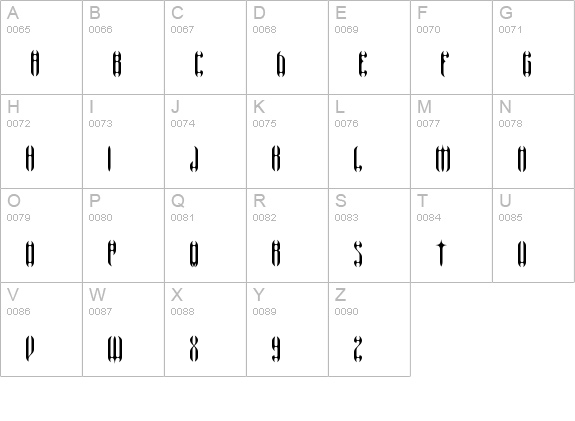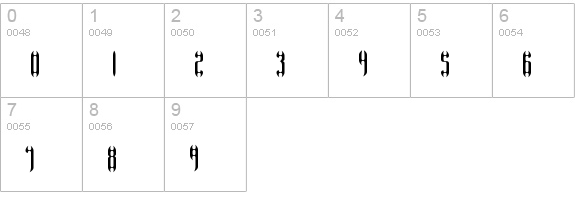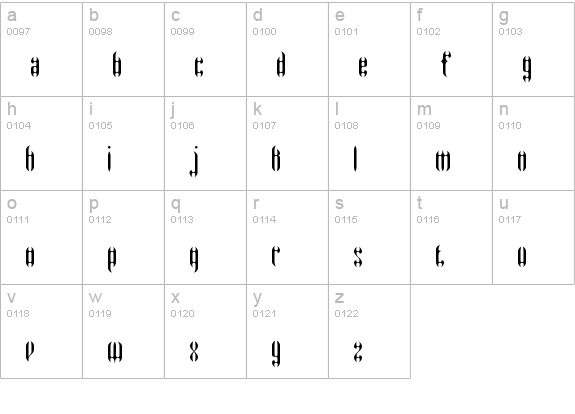
Wyvern Wings BRK Font Details
Wyvern Wings BRK font is a captivating and bold typeface that exudes a sense of power and mystique. Its intricate design with sharp edges and unique curves gives it a distinct and alluring appearance. This font is perfect for projects that require a touch of fantasy and adventure, making it ideal for book covers, posters, and gaming-related designs. The best part is that Wyvern Wings BRK font is available for free download at FontsMarket.com. You can easily access this stunning font and add a touch of magic to your creative projects without any cost. Embrace the enchanting allure of Wyvern Wings BRK font and let your designs take flight with its captivating charm.